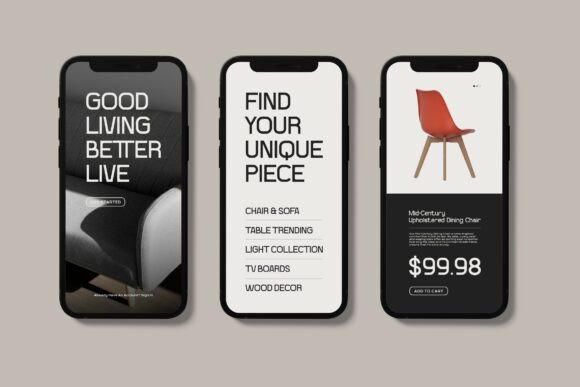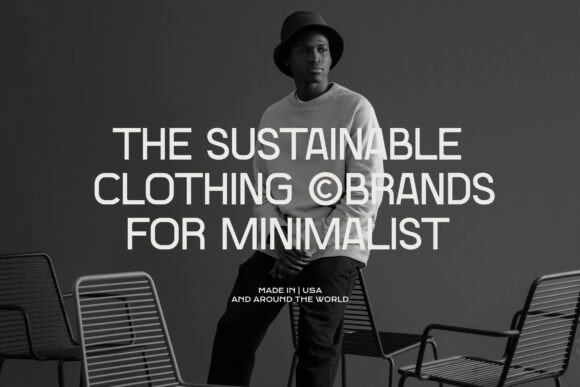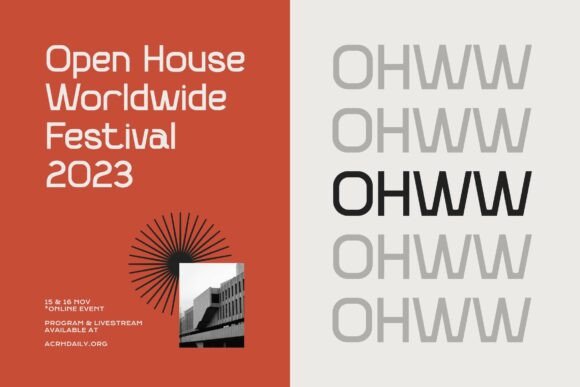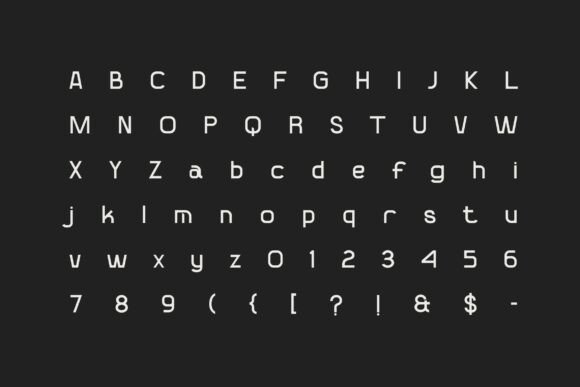
The Birth of a Design Icon: Axiome Font
Have you ever stared at a blank page, waiting for the perfect font to bring your design to life? For designers, this moment is all too familiar. It’s a moment of creative uncertainty, where the right typography can make or break the entire aesthetic. And that’s where the Axiome Font comes in – a modern, minimalist display typeface that’s poised to revolutionize the world of design.
Axiome Font is a masterful blend of crisp geometry and subtle humanist details, making it the perfect choice for branding, editorial, web, and poster design. With its consistent monoline stroke, each letterform is a testament to the font’s clean and sophisticated design. For designers, Axiome Font is a valuable addition to their toolkit, offering a unique and versatile solution for their most ambitious projects.
Axiome Font Key Features
- Character Set: The font features a comprehensive character set, including uppercase and lowercase letters, numerals, punctuation marks, and a range of special characters, making it suitable for diverse text settings.
- Unique Characteristics: Axiome Font boasts a distinctive, modern design with a clean and minimalist aesthetic, making it an excellent choice for contemporary typography and branding applications.
Axiome Font Review
I’ve had the chance to work with Axiome Font, and I must say it’s a decent addition to any designer’s toolkit. ✨ The font’s clean and minimalist aesthetic works well for modern designs, making it a great choice for tech startups, fashion brands, or any project that requires a touch of sophistication.
- The font’s legibility is top-notch, making it easy to read even at smaller font sizes.
However, I do have a few reservations. ⚠️ The font’s limited glyph set might be a concern for designers working on projects that require a wide range of special characters. Additionally, the font’s bold weight can sometimes feel a bit too aggressive, which may not be suitable for all design applications.
Overall, I think Axiome Font is a solid choice for designers looking for a clean, modern font. While it may not be perfect, its strengths far outweigh its limitations, making it a great addition to any designer’s toolkit.
For best results, use the Axiome font in combination with bold or italic styles to create visual interest. Experiment with different font sizes and colors to create a harmonious design.
The Axiome font is ideal for:
- Presentations and slides
- Branding and identity design